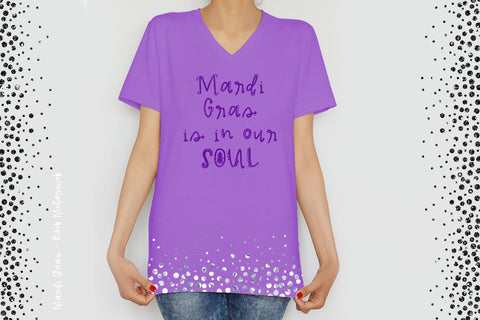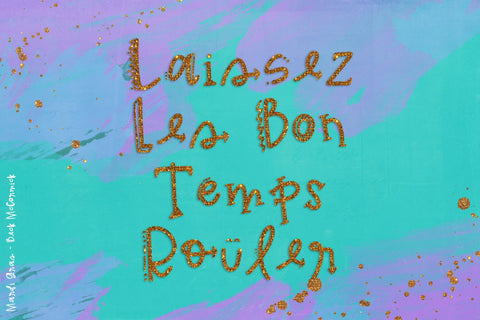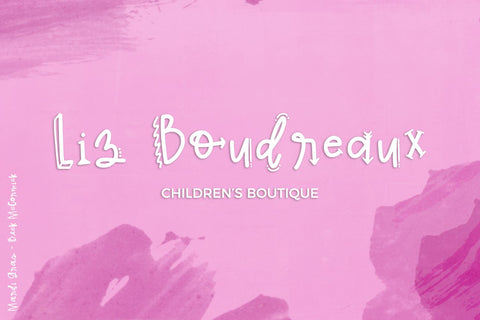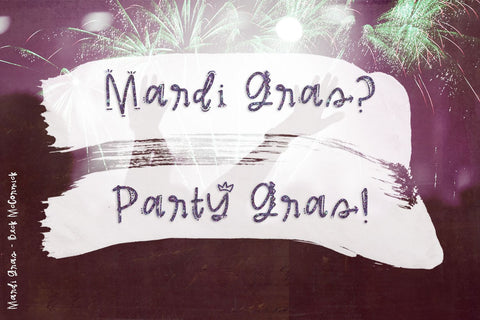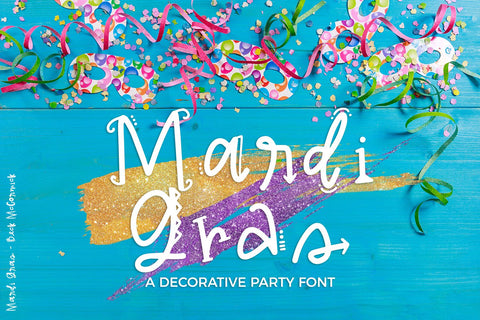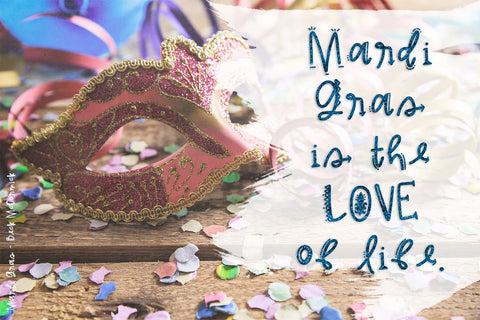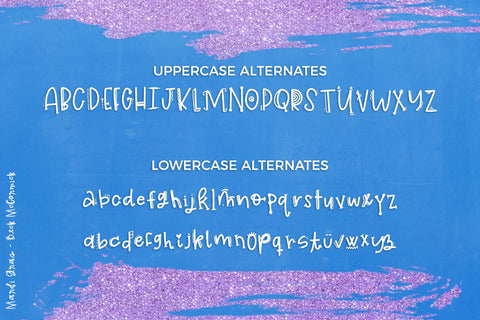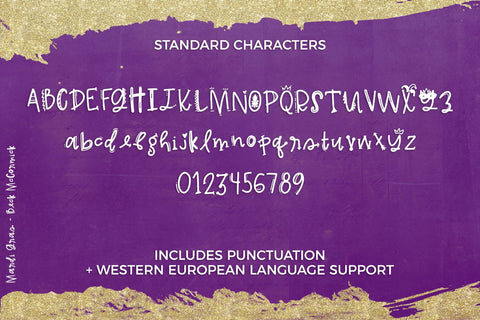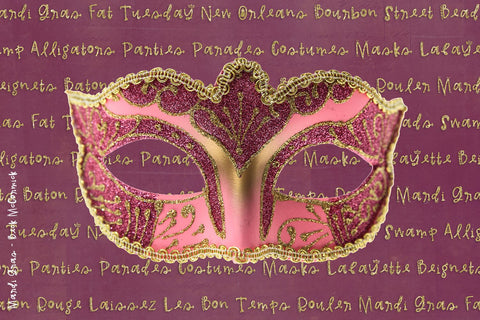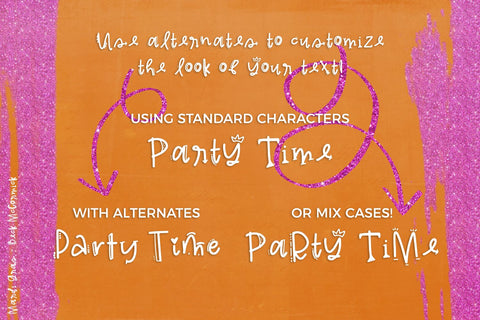
Mardi Gras Party Font
Introducing the super fun **Mardi Gras** decorative party font!
**Mardi Gras** will be a perfect fit for:
- fun + whimsical projects, or kid-centric brands
- design projects like cards, stationery, or typography creations
- social media graphics + quotes
**Mardi Gras** includes:
- full upper + lowercase characters
- a full second set of uppercase stylistic alternates
- two full second sets of lowercase alternates
- numbers, punctuation
- Western European Language Support